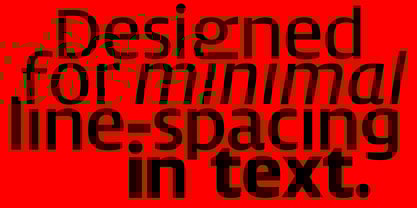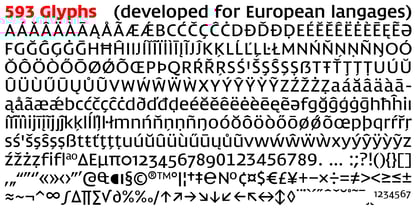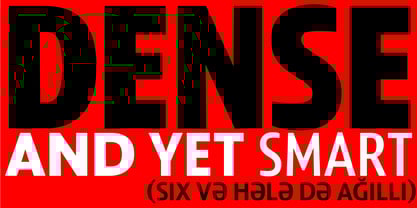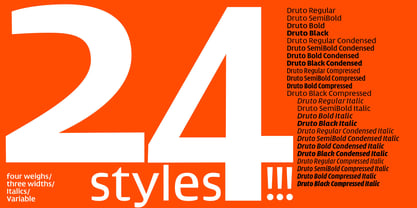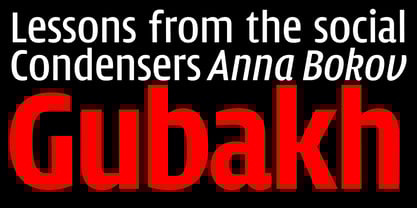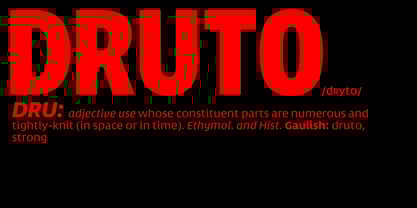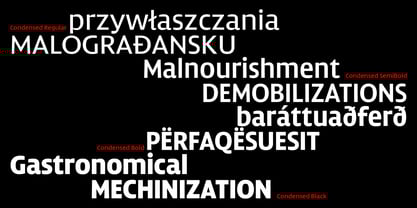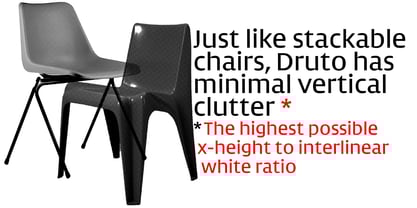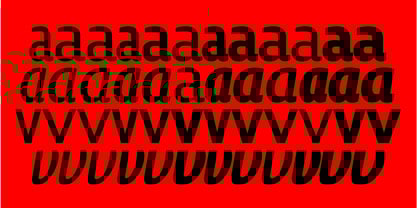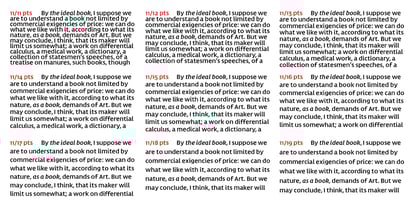
Druto
Just like stackable chairs, Druto has minimal vertical clutter.
Conceived to address the contradiction between space saving and legibility with other means than font-size, its design seeks solutions to optimize reading comfort in dense text. To achieve this, Druto takes a unique approach. Its design aims to support the lowest possible line spacing in prolonged text. In other words : to remain satisfactory with the highest possible x-height to interlinear white ratio in a context of prolonged reading.
The first constraint for saving space in the interlinear white are, obviously, minimal ascenders and descenders. Therefore very high arches make the strokes stand out, while opening up the typeface. Druto’s strong visual horizontality reinforces the sensation of a powerful line in the absence of generous whites. The flat counter-forms, horizontal arches and low contrast serve to emphasize the horizontality of the line. As a result, the typeface remains very open and wide, making it more comfortable to read.
Druto comes in four weighs, three widths, and respective italics.